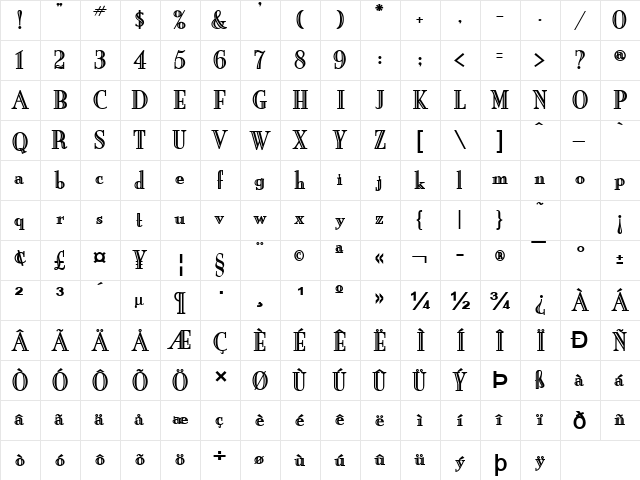
New England Engraved Bold
Design Context for New England Engraved Typeface
New England Engraved brings ornamental detail and strong personality to headlines and identities, where visual impact matters more than quiet functionality. The heavy weight commands attention and anchors typographic hierarchies.
Font Pairing: Pair with a clean neutral sans-serif for body copy to let New England Engraved's character lead without overwhelming the composition.
Pro Tip: Treat New England Engraved as the centrepiece of your typographic hierarchy. One strong heading set in a decorative face can carry an entire layout.